Today we decided to look at the design sites for free and premium type marker fonts and found a whole bunch of them so extraordinary and unique. How about these fonts to use in your design projects?
All these beautiful marker fonts is crafted by professional type designers and are in the best quality no matter it is free or premium font. They all can fit your needs to create an amazing typographic in the design. So, keep a workflow going and enjoy.
Rollercoaster
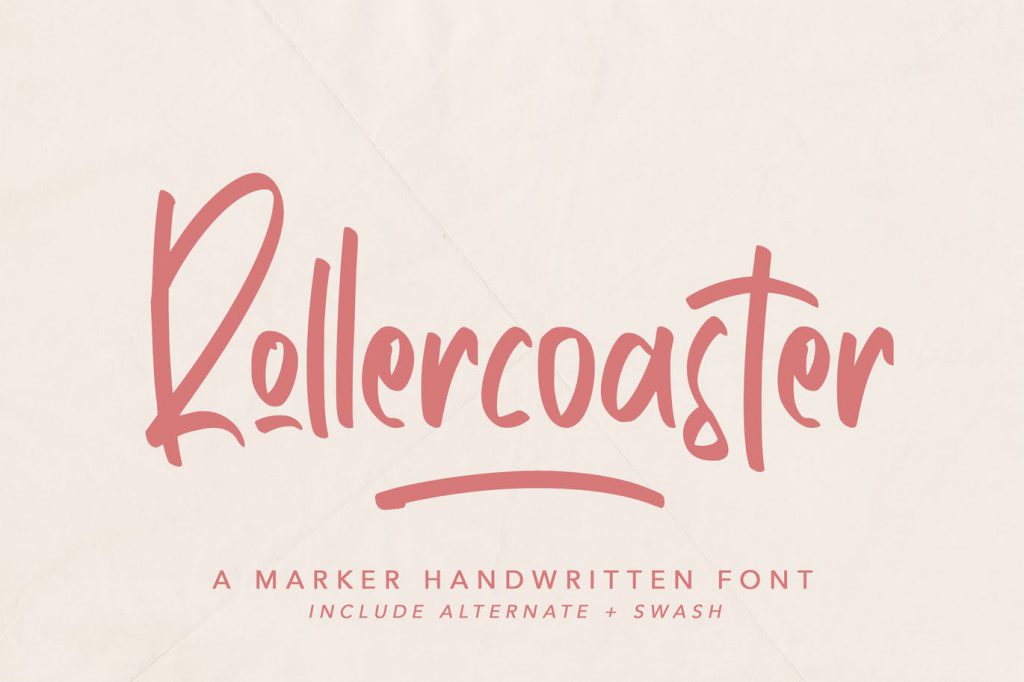
It is a handwritten marker font that looks neat and nice in your design projects. Perfect for logotypes, posters, badges, book covers, t-shirt designs, packaging and etc.
Crayon Marker
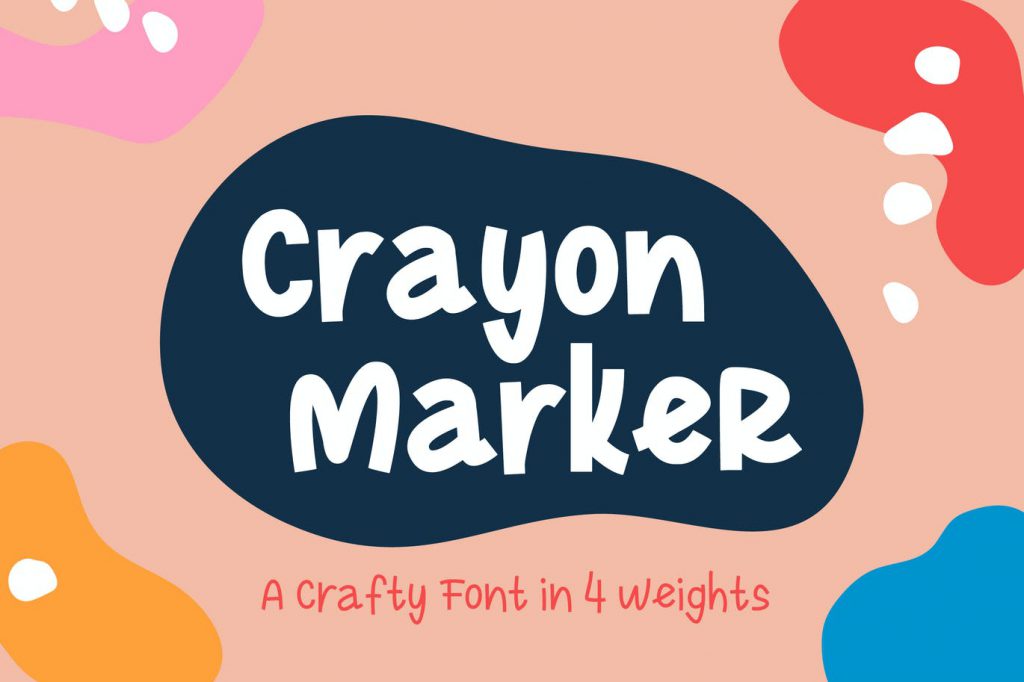
It is a playful hand-drawn typeface and it comes in 4 weights. Use for logos, quotes, invitations, greeting cards, journals, kids room wall art and etc.
Incognito
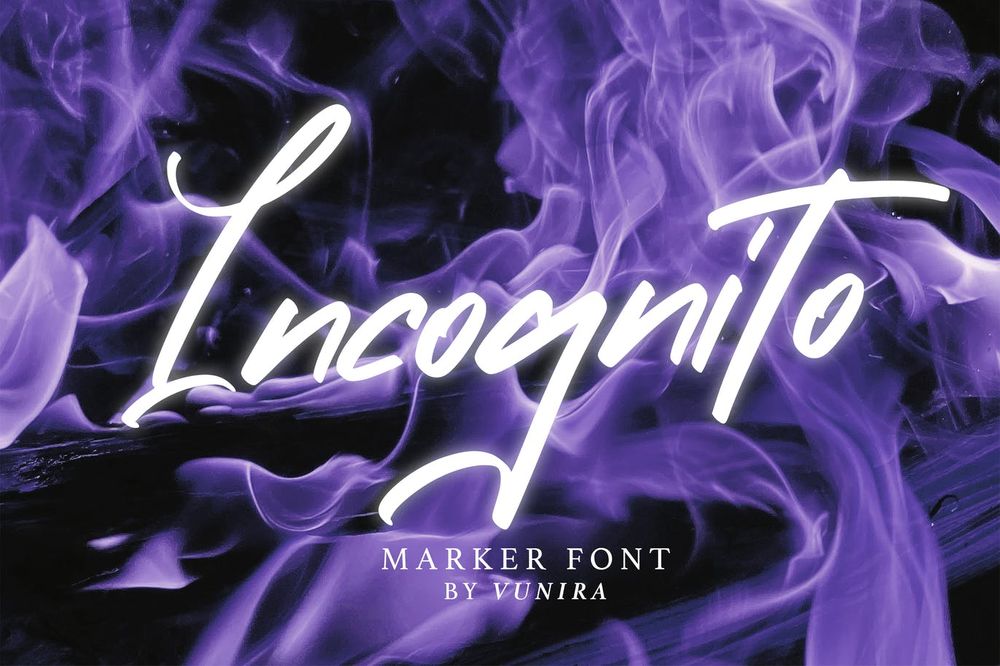
It is a cool marker font with calligraphy style, so beautiful on invitations, greeting cards, branding materials, business cards, quotes, posters and etc.
Mystique
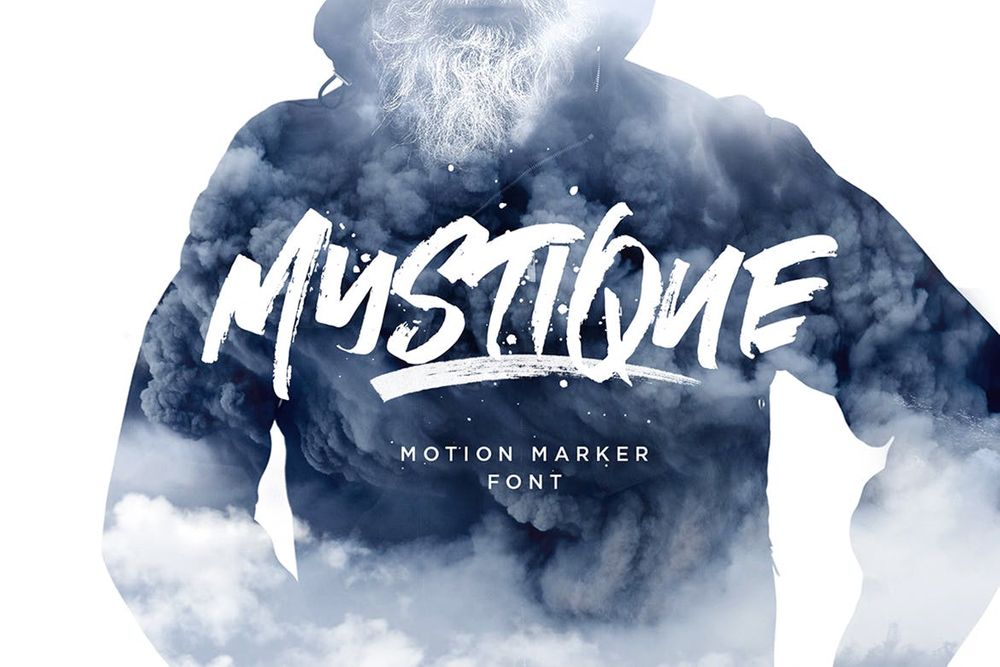
It comes with a full set of upper and lower case characters – giving you the extra freedom to turn your text into authentic custom-made hand lettering style. Best for posters, t-shirt designs, flyers, headlines, covers and etc.
Outhouse
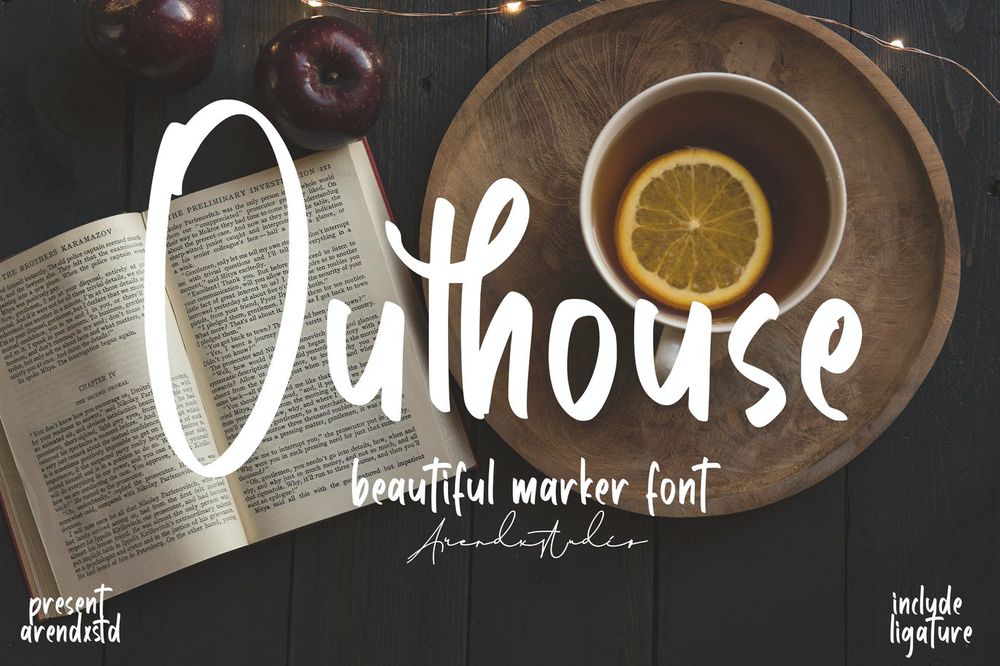
It is a handwritten marker font that looks neat and nice in your designs such as book covers, tittles, posters, flyers, t-shirt designs and etc.
Authentive
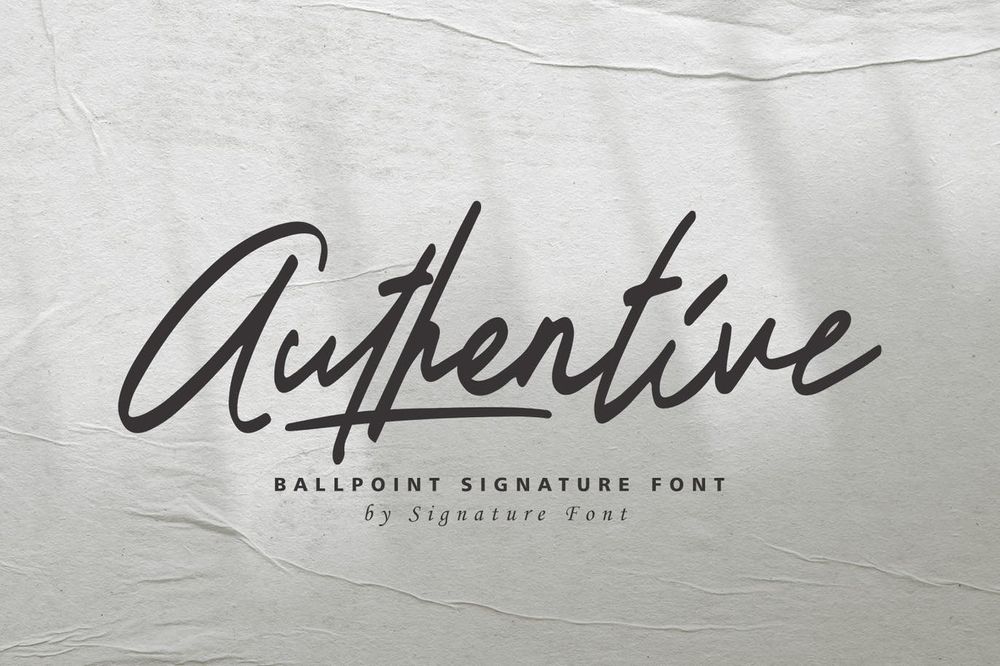
A handwritten signature font made with marker pen. For those of you who are needing a touch of clean handwritten signature, chic and modernity for your designs. Ideal for invitations, greeting cards, posters, flyers, covers and etc.
Slightly Marker
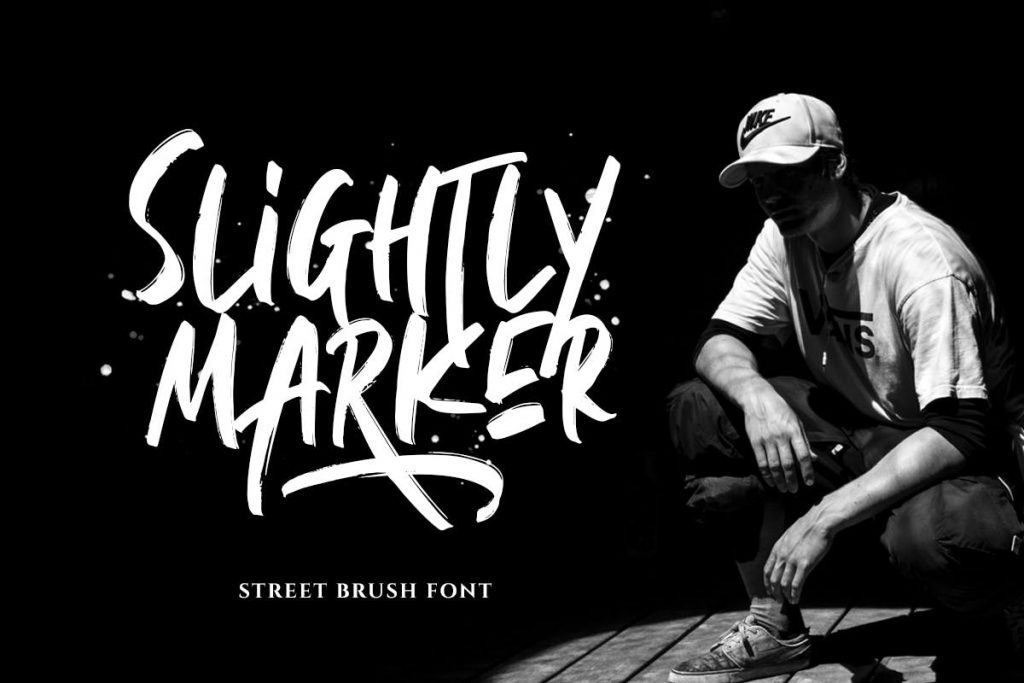
It is a caps font with street style brush. It’s contain uppercase and lowercase in different style, number, symbol, and also with multilingual support. Ideal for street art, wall designs, covers, tittles, posters and etc.
Flash Marker
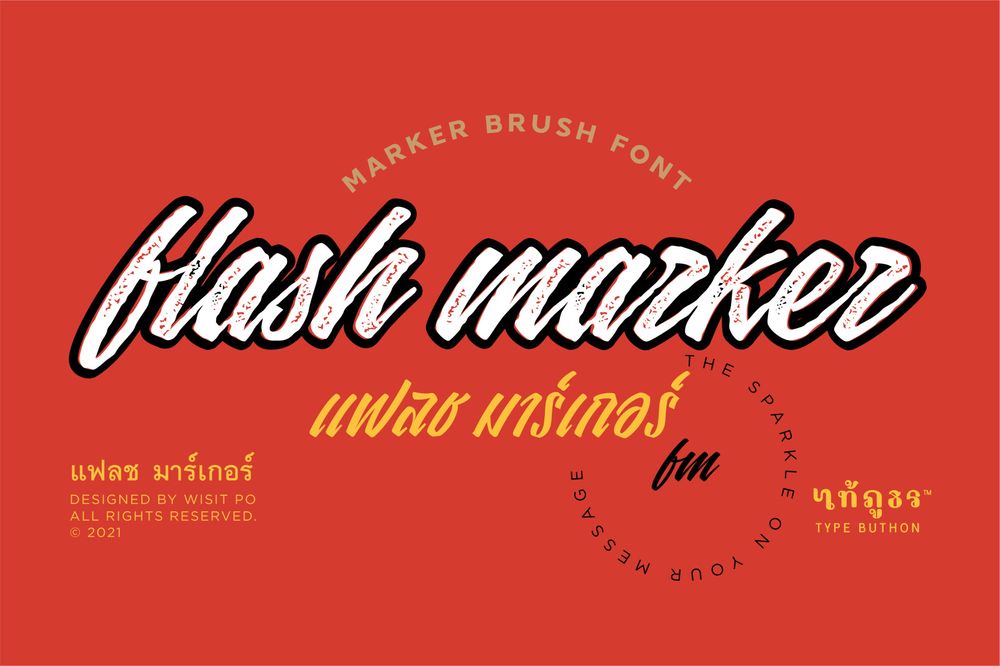
It is a hand brushed typeface. Ideal for logos, branding, handwritten quotes, product packaging, headers, posters, merchandise, social media & greeting cards.
By Note
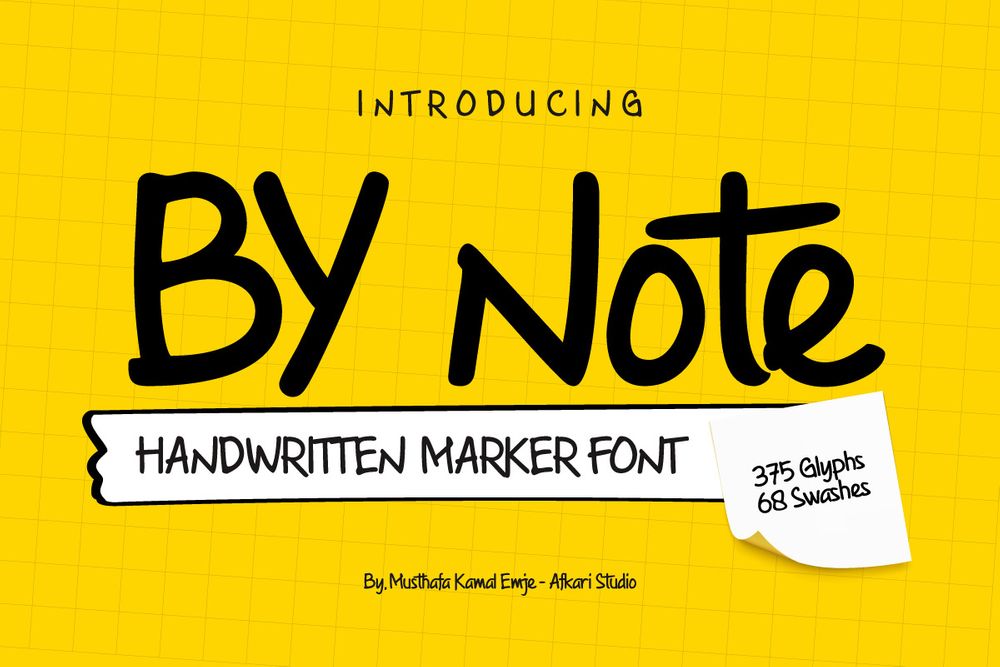
It is a handwritten marker note font that’s created with a natural and unique style. Great for digital notes, quotes design, book covers, logotypes, posters, food menu, t-shirt designs, scrapbooking, comic illustrations and etc.
Highlander
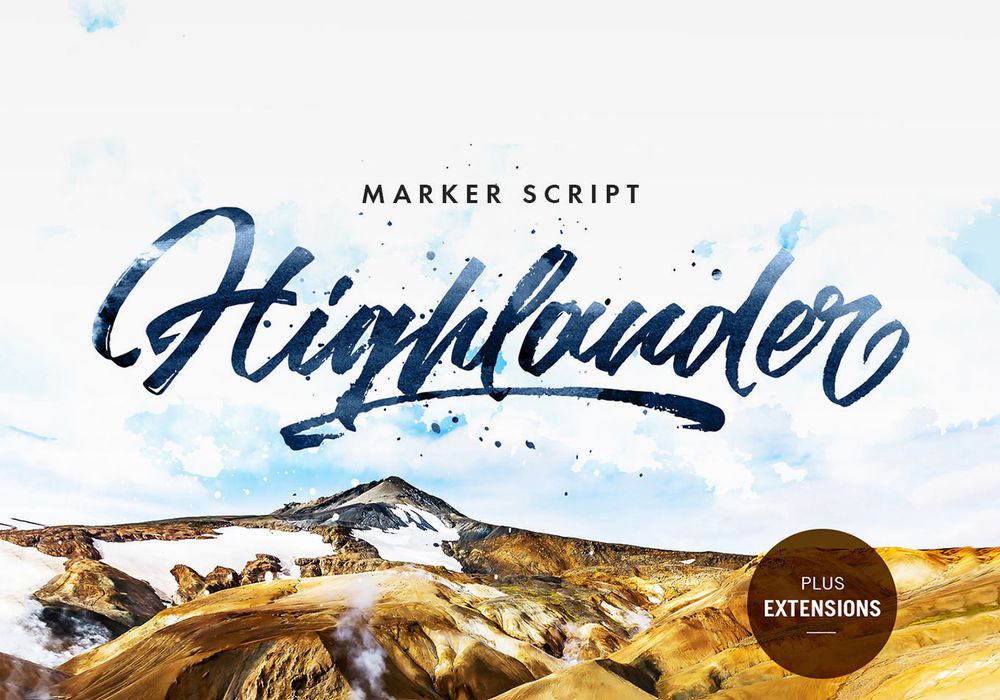
It comes with a full set of upper and lower case characters – giving you the extra freedom to turn your text into authentic custom-made hand lettering. Perfect for tittles, t-shirt-designs, badges, posters and etc.
Hazard (Free)
It is a great free marker font you designs. It has a chunky and bold letter design that instantly attracts attention. Ideal for posters, book covers, tittles, flyers, t-shirt designs and etc.
Manoyri (Free)
It is a handwriting font with a variation of thin and thick brush style lines. Perfect for posters, badges, logos, covers and etc.
Blackout
This all caps font is suitable to use for casual purpose. Try to use it on events, branding, photography, movie titles, comic books and etc.
Brotherhood
It is a brush marker font with a handmade natural brush that will perfectly going on any of your design projects such as logos, wedding designs, social media posts, advertisements, product packaging, product designs, labels and etc.
The Brown Fox
It is a stylish marker font with a brush-style that perfect for your design projects such as logos, wedding designs, social media posts, advertisement, product packaging, product designs, labels and etc.
Mix Lower
It is a random marker font with the fun style suitable for your design project needs, such as unique theme, social media posts, your quotes, overlays on images, fun logos, posters and etc.
Black Jalkot
It is an all caps marker font that suitable for any design such as display, quotes, social media posts, posters, covers and etc.
Letter Marker
It is an all caps handwritten marker font for your design. Perfect for t-shirt, posters, book covers, social media posts, flyers and etc.
Straightfast
It is a marker script font with rough stroke and fun character. It has OpenType features, a couples of ligature and swashes to give you an extra creative work. Ideal for logo designs, social media, movie titles, books titles, a short texts and etc.
Shanders (Free)
It is a hand brush marker font, with authentic clean brush imperfections, and a very bouncy baseline. Powerful for designs such as logos, handwritten quotes, product packaging, headers, posters and etc.
Handkick Marker (Free)